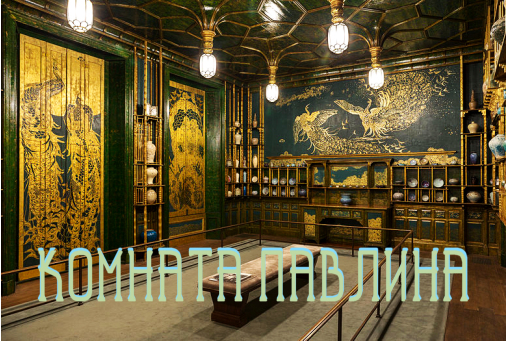
I love the look of this style. The name is self explanatory ;) if you know French.........
UC, numerals and some symbols have one line thicker than the others, LC only has the thinner lines. LC can be used on its own if even thickness of lines is desired but it is 3 px shorter than UC which will show clearly when using Basic Latin LC in combination with Hebrew, numerals, some symbols and some punctuation marks. Cyrillic and Hebrew added. Latin1 will come eventually ;)
just wanna tell you the Cyrillic "У у" looks like this not "Y y". I'm not Russian so it's your choice to change or not
Love the Komnata Pavlina Sample
@ JingYo: thank you, I've changed the shape. Now it certainly looks like it belongs to the Cyrillic set.
That's some lovely work. I could've sworn it was a hand written/printed/drawn font when I first looked at it, those curvy serifs really work well.